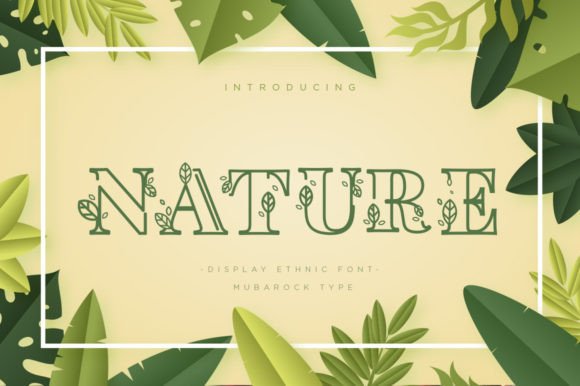
Looking to add a touch of elegance and nature-inspired charm to your designs? Look no further than Nature Font, the best font for your clothing line! This decorative font, created by mubarocktype, is the perfect choice for those seeking a unique and captivating typeface.
Nature Font stands out from the crowd with its elegant, leaf-shaped design. Each letter is carefully crafted to exude a sense of botanical beauty and organic vibes. Whether you're designing titles, invitations, letters, or logos, this font will add a strong and eye-catching element to your creations.
Capture the attention of your audience with the captivating curves and intricate details of Nature Font. Let your designs flourish and come to life with this font's exquisite and distinctive style. It's the perfect tool to elevate your brand and make a lasting impression on potential customers.
Let your clothing line stand out in a sea of ordinary fonts. Nature Font brings a breath of fresh air to your designs, infusing them with a natural and timeless appeal. With this font, your brand will radiate authenticity and sophistication, leaving a lasting impact on your target audience.
Embrace the power of Nature Font's decorative nature, which adds an extra layer of creativity and uniqueness to your projects. Its versatility allows you to explore endless possibilities, making it suitable for various design purposes. Whether you're aiming for a vintage, bohemian, or modern aesthetic, this font can effortlessly adapt to your vision.
Unlock your creativity and create designs that speak to the heart and soul of your audience. Nature Font is not just a font; it's a storytelling tool that connects with your customers on a deeper level. Its emotional appeal will evoke feelings of harmony, beauty, and the wonders of nature.